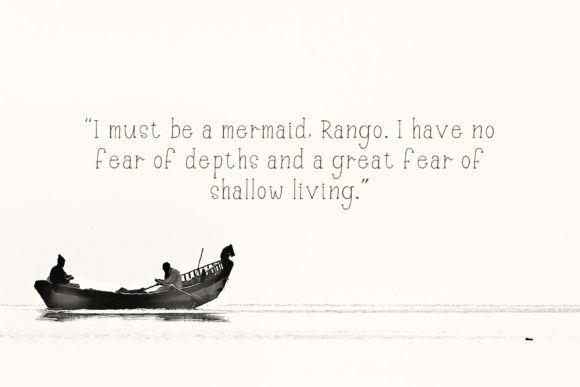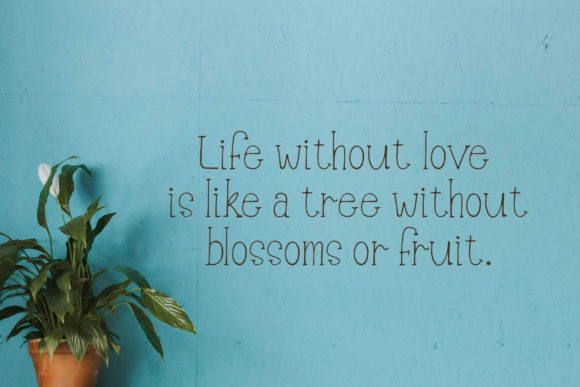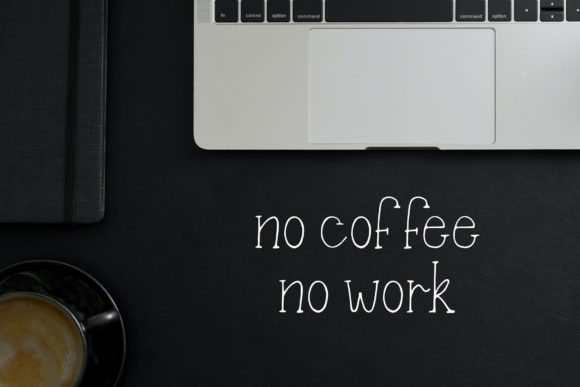
Introduction to Kanayan Font
Have you ever stared at a blank canvas, unsure of where to begin a creative project? For designers, finding the perfect font can be the difference between a design that truly shines and one that falls flat. As you search for the perfect typography, you may come across the Kanayan Font – a simple and natural serif font that is sure to captivate your audience.
With its thin and delicate lines, the Kanayan Font is an ideal choice for a wide range of designs, from formal business materials to informal social media graphics. Whether you’re working on a high-quality brochure or a creative project with a transparent background, this font is a valuable resource for designers of all levels.
- Designed with a unique aesthetic, making it perfect for modern and trendy designs
Honest Review: Kanayan Font
I recently had the chance to try out the Kanayan Font, and I must say it’s a great addition to any designer’s toolbox. As a free download, it’s a fantastic resource for those looking to elevate their creative projects.
What works well is its high quality and versatility. The font comes in various weights, making it perfect for creating visually appealing headings and titles. I also appreciate the transparent background option, which allows for seamless integration with other design elements.
- ✨ High-quality design: The Kanayan Font is incredibly detailed and smooth, making it a great choice for print or digital projects.
- ✨ Versatile: With multiple weights and a transparent background, this font is perfect for a wide range of creative projects.
One limitation I’ve noticed is that the font might not be suitable for very small text sizes, as it can become difficult to read. Additionally, some users might find the font a bit too ornate for certain design projects.
Overall, I’m impressed with the Kanayan Font and would definitely recommend it to fellow designers. Its high quality, versatility, and free download make it a valuable resource for any creative project.
Tips for Getting the Most Out of Kanayan Font
Use the Kanayan Font in combination with other design elements to create a unique and eye-catching design. Experiment with different font sizes and colors to achieve the desired effect.
The Kanayan Font is ideal for use in creative projects such as logos, brochures, and social media graphics. Its high-quality design and transparent background make it a versatile resource for any design project.